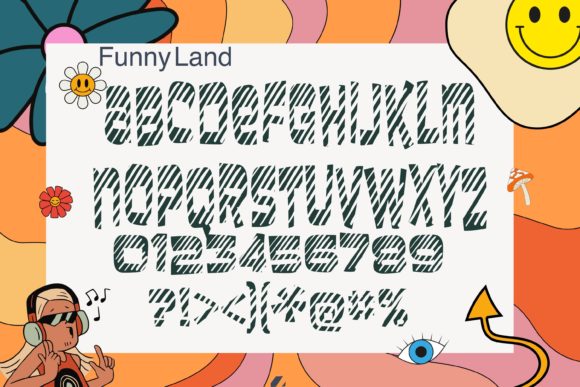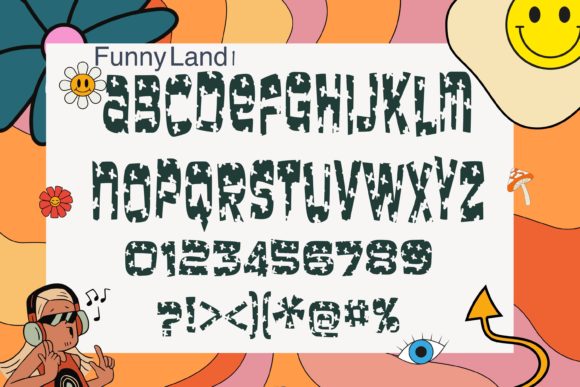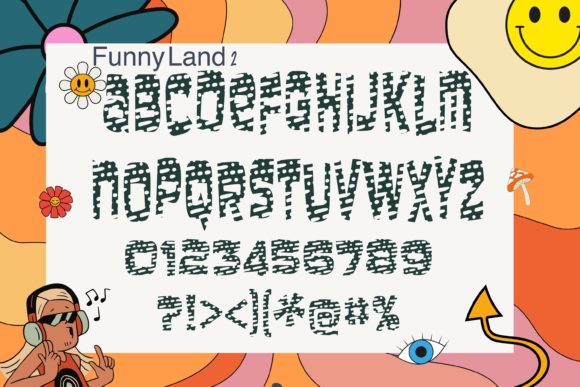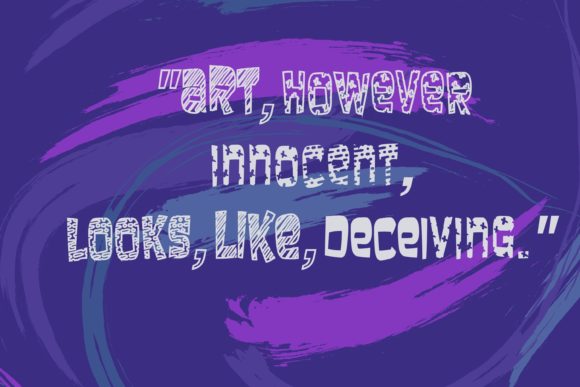
Introduction to Funny Land Font
Funny Land is a cool and enjoyable display font.
It has a pleasant and cheerful appearance and can complement any of your designs Your imagination is the only thing that holds you back.